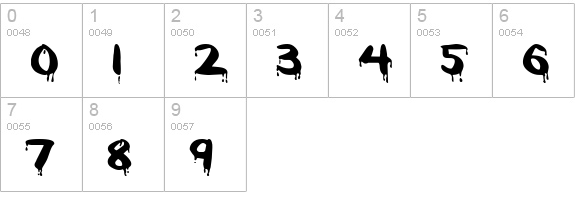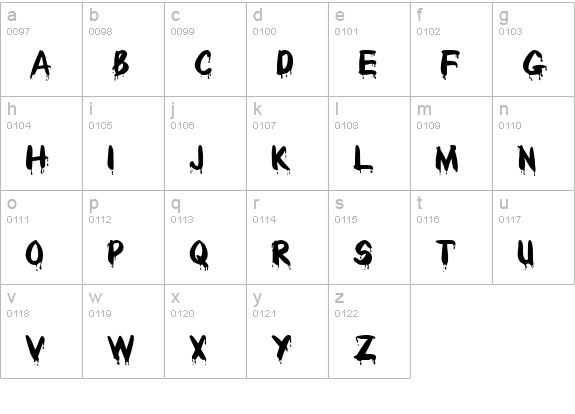
DripsExtended Normal Font Details
DripsExtended Normal is the standard, neutral variant in the DripsExtended typeface family \xE2\x80\x94 well suited to general body text, paragraphs, and standard typographic work.